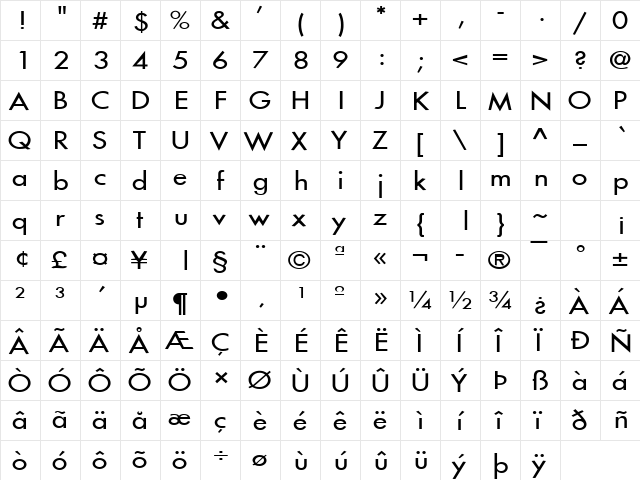
Fusi-Extended Normal Font Preview
Fusi-Extended Normal
Fusi-Extended Normal Font Details
Design Context for Fusi-Extended Typeface
Fusi-Extended is a composed and adaptable typeface that performs quietly and consistently across a wide range of design contexts.